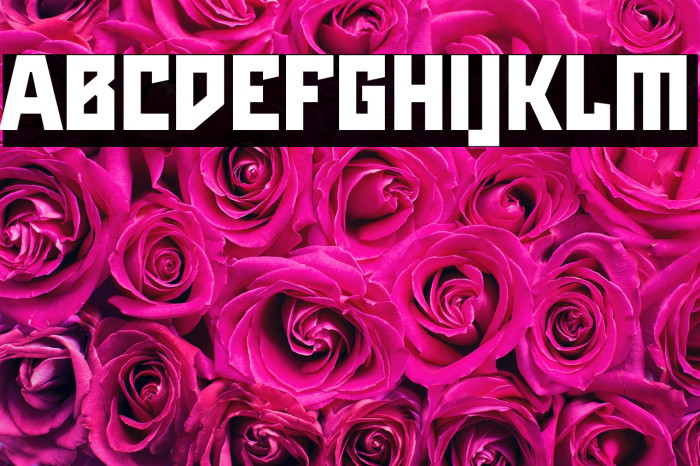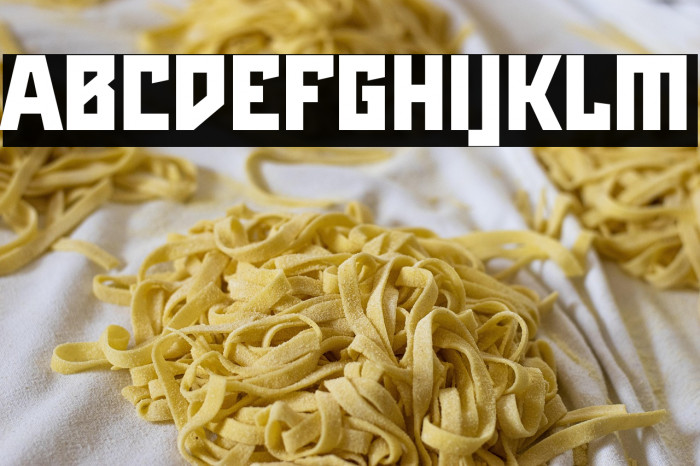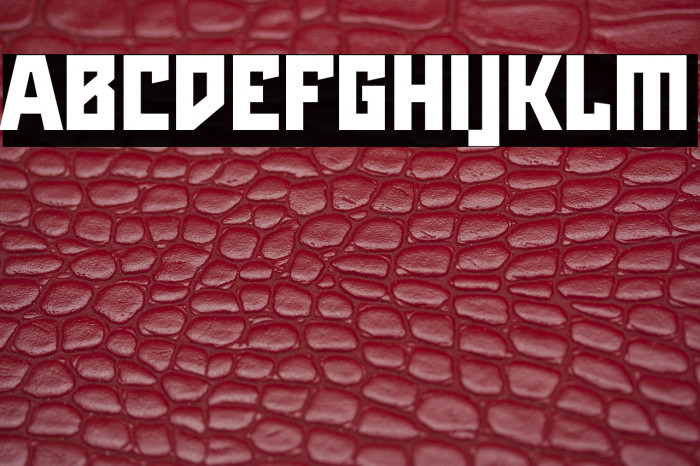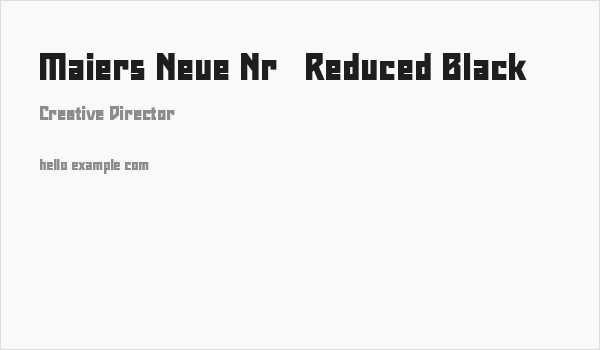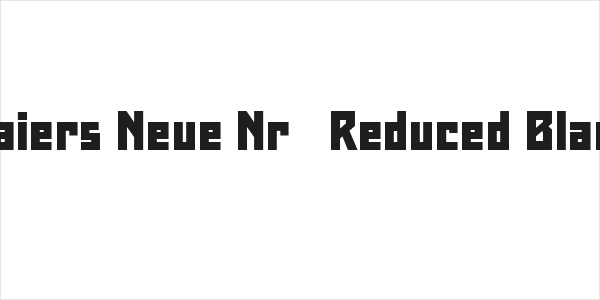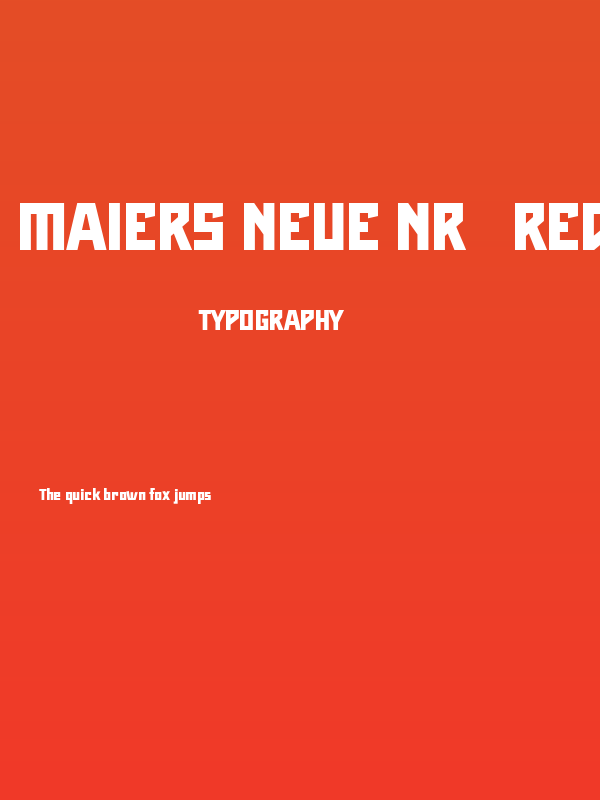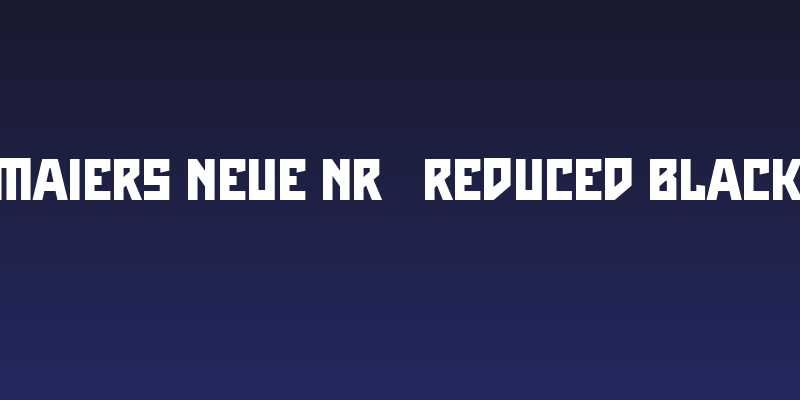
Maiers Neue Nr.8 Reduced Black Font
Maiers Neue Nr.8 Reduced Black Description
This font features a bold, geometric design with strong, angular lines and a blocky appearance. The characters are uniformly thick, giving a sense of strength and stability. The uppercase letters are particularly striking, with sharp edges and a modern aesthetic. The lowercase letters maintain the same boldness, ensuring consistency across the typeface. The numbers and special characters follow the same design principles, making the font versatile for various uses. Its distinct style makes it suitable for attention-grabbing headlines and impactful designs.
| Proposed Projects | Ideal for branding, posters, headlines, and any design requiring a strong visual impact. |